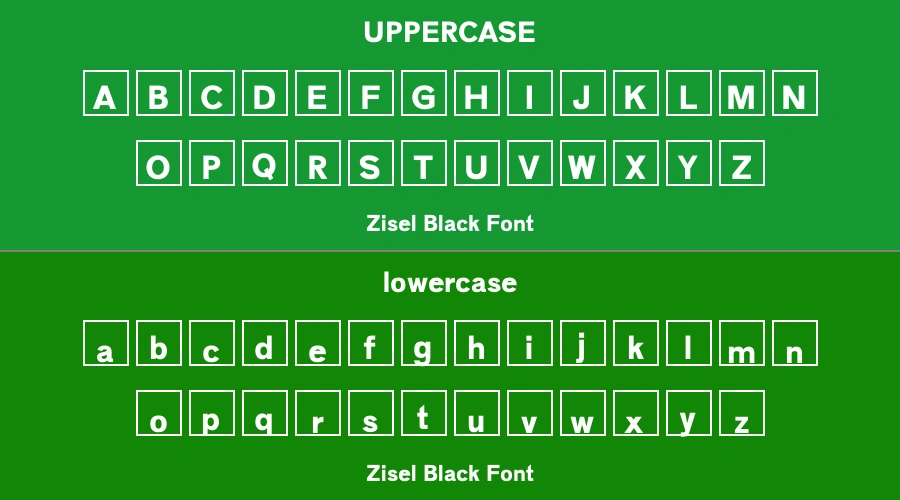
About Zisel Black Font
Zisel Black Font stands out for its distinctive combination of artistic freedom and reliability. Ideal for architectural plans, it provides the versatility and professional standards that professional projects demand. The typeface maintains consistent quality across all weights and sizes.
Key features include refined concave curves and practical stylistic sets, enhancing typographic expression. In section headers applications, Zisel Black Font demonstrates exceptional file efficiency. The contrast level and market positioning contribute to its distinctive character and professional appeal.